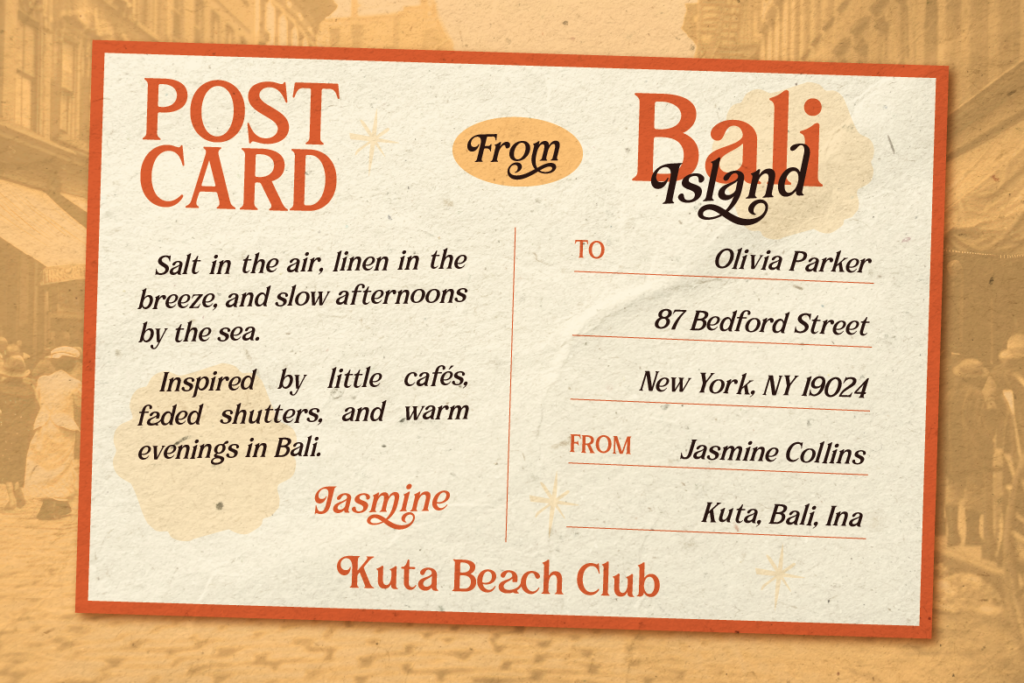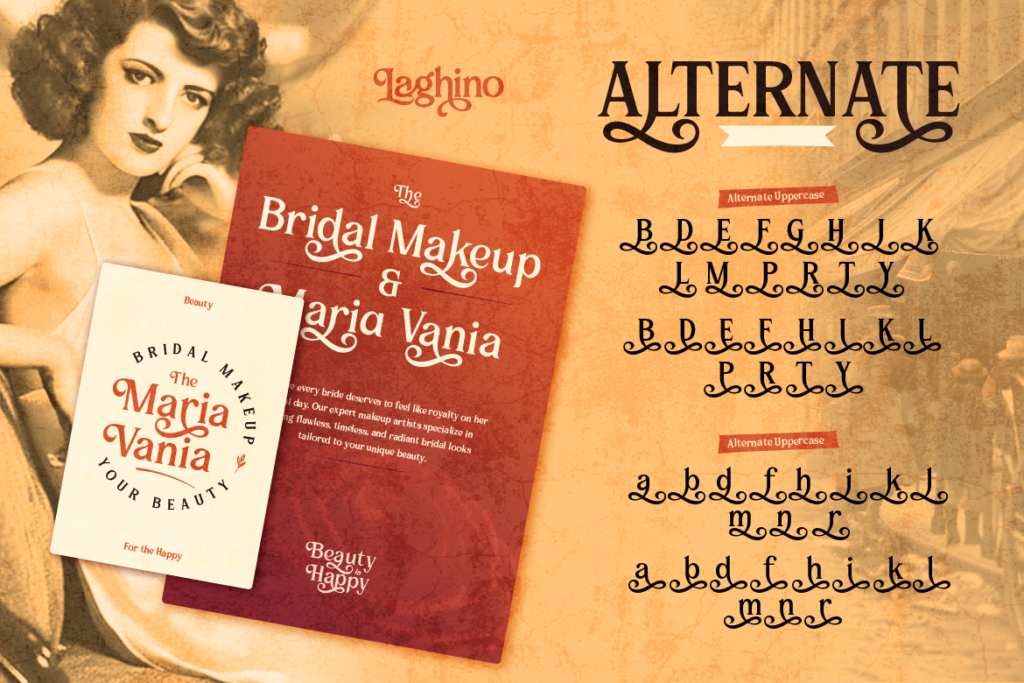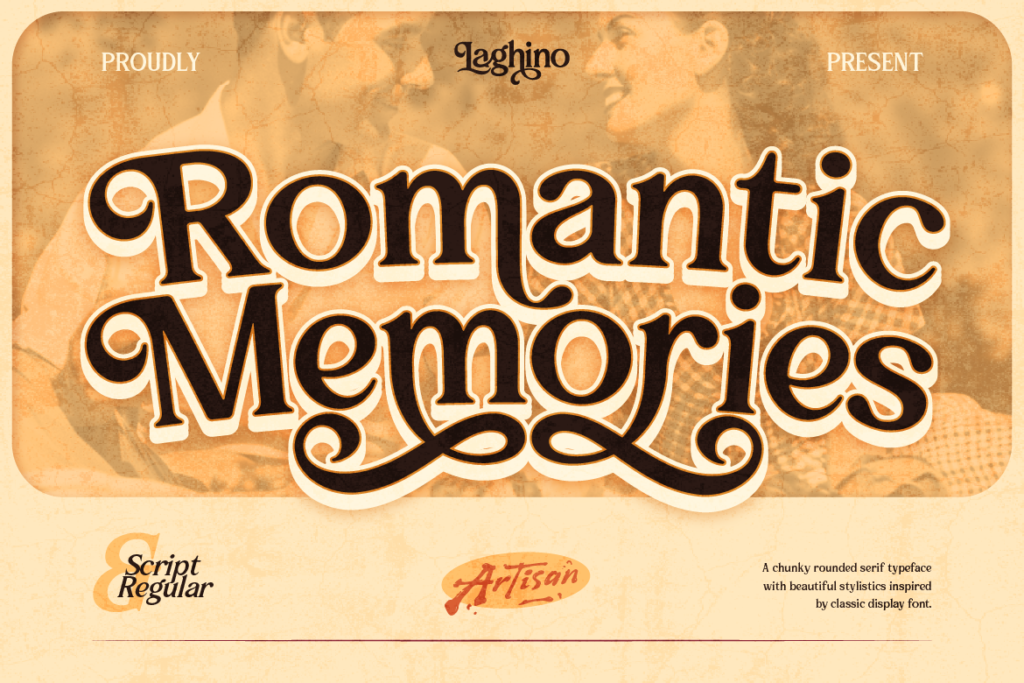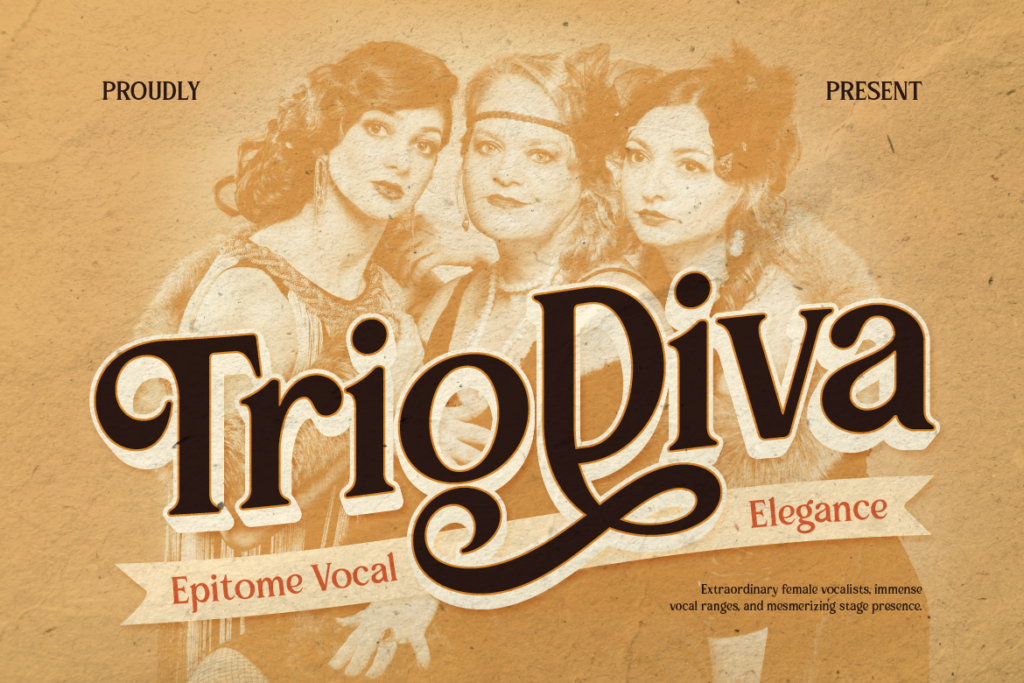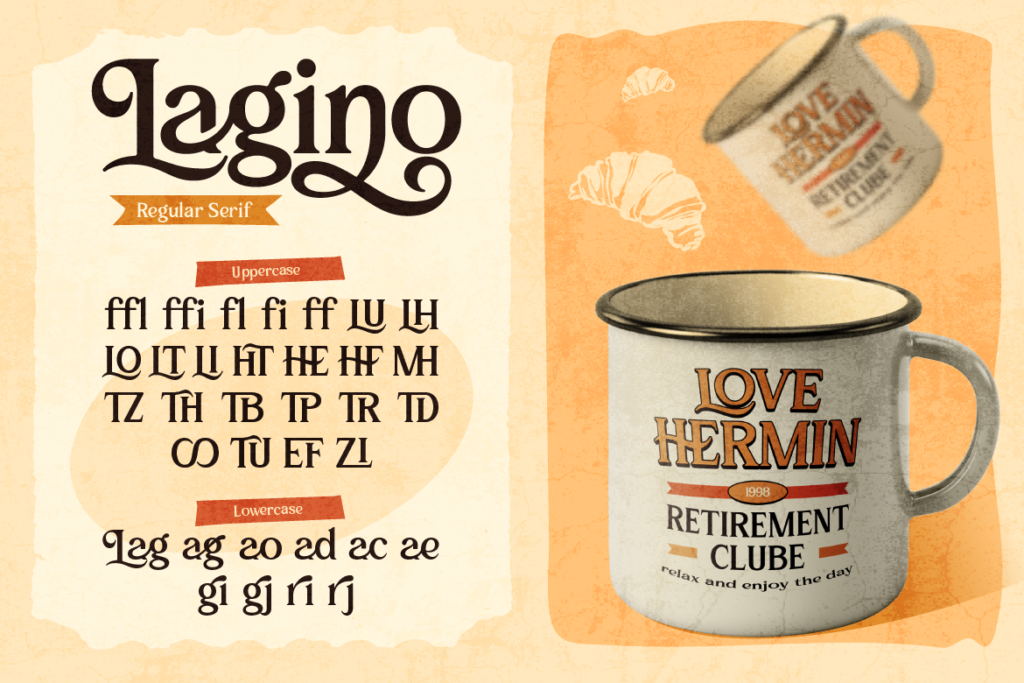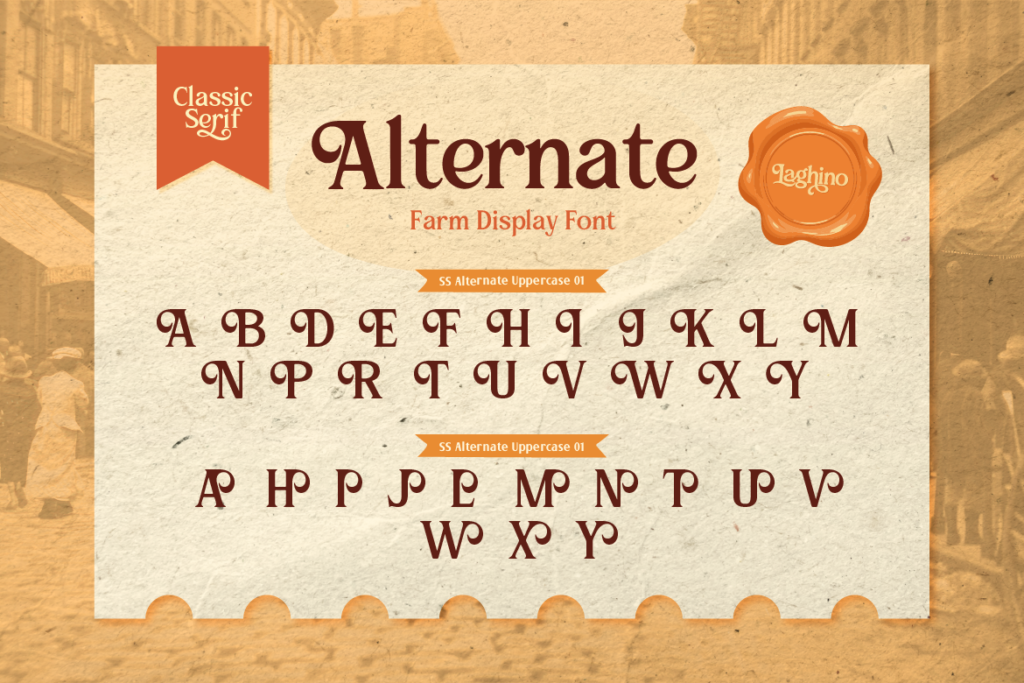
Timeless Elegance with Laghino Classic Round Font
When it comes to high-end branding, editorial publishing, and luxury packaging, choosing the right typeface makes all the difference. You need a font that feels sophisticated without looking stiff or outdated. That is where Laghino steps in.
Laghino is a premium classic round font crafted specifically to bring warmth, grace, and timeless luxury to your creative visual identity.
What Makes Laghino So Special?
Laghino takes traditional serif structures and softens them with smooth, rounded curves. This subtle design choice removes the harshness often found in classical serifs, resulting in a typeface that feels welcoming yet deeply refined.
Highlights of the Laghino font family include:
• Smooth Round Curves: Softened serifs that create a gentle, high-end aesthetic.
• Balanced Proportion: Works beautifully in both massive display headlines and compact subheadings.
• Versatile Ligatures: Includes elegant letter combinations that give your logos a custom studio finish.
Where to Use Laghino in Your Designs
Because Laghino balances tradition with modern elegance, it is an exceptional choice for:
• Luxury Branding & Logos: Perfect for fashion houses, skincare lines, interior design studios, and boutique hotels.
• Editorial & Magazine Layouts: Adds sophistication to article titles, pull quotes, and book covers.
• Event Stationery: Ideal for luxury wedding invitations, event menus, and high-end ceremony cards.
Recommended Font Pairing
For a breathtaking typography hierarchy, pair Laghino with a minimalist, lightweight Sans Serif for body paragraphs, or combine it with a delicate Script font for short romantic accents.